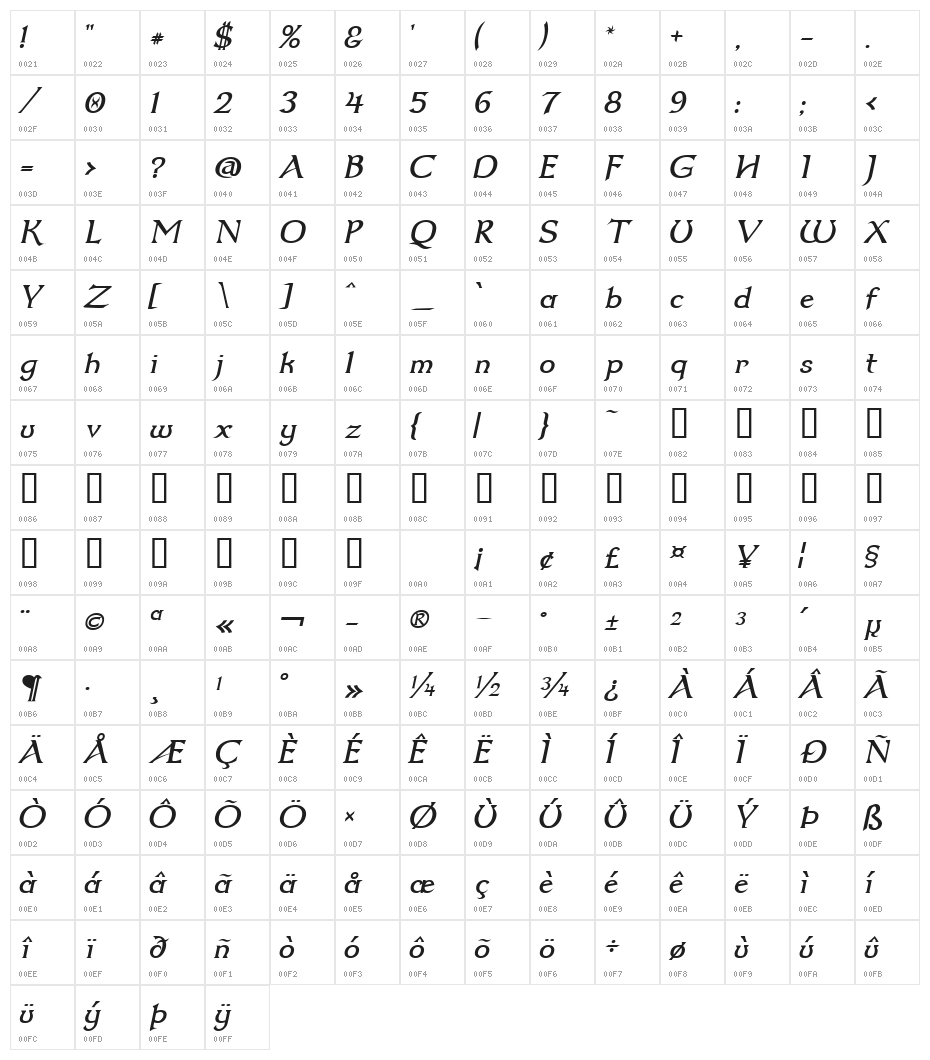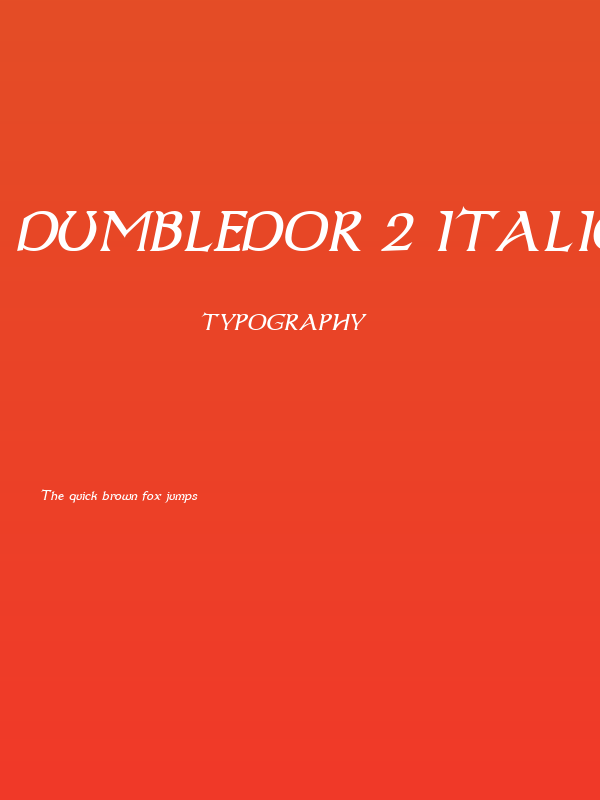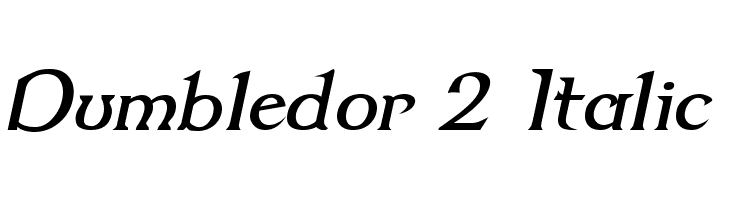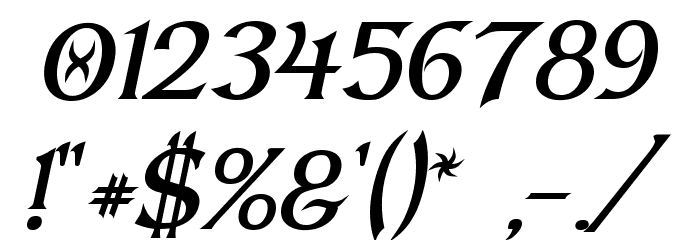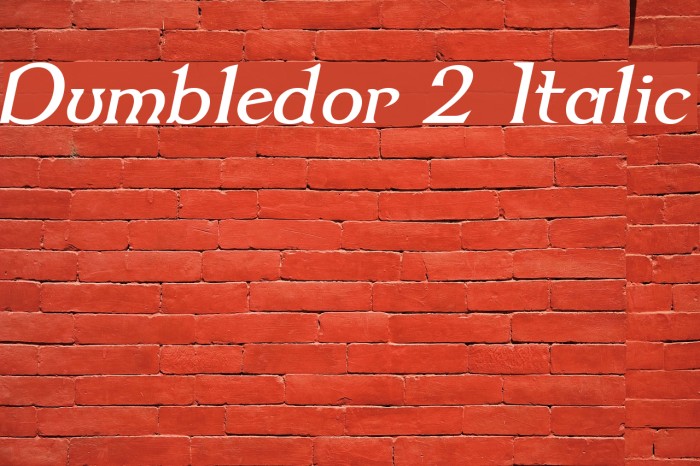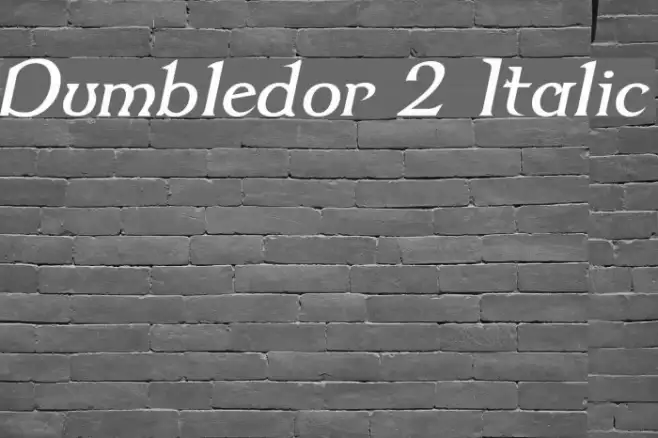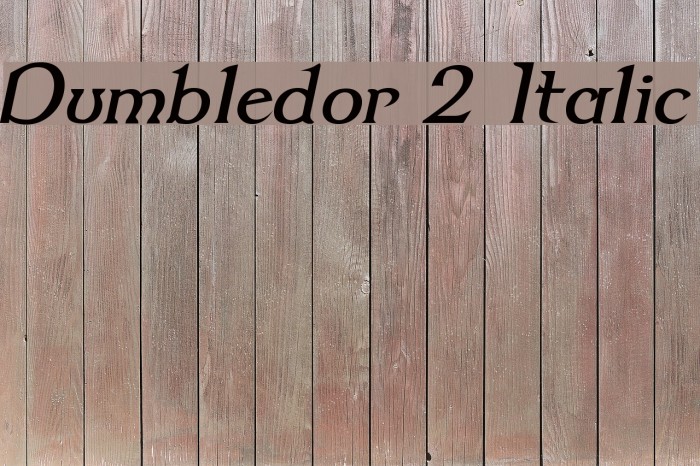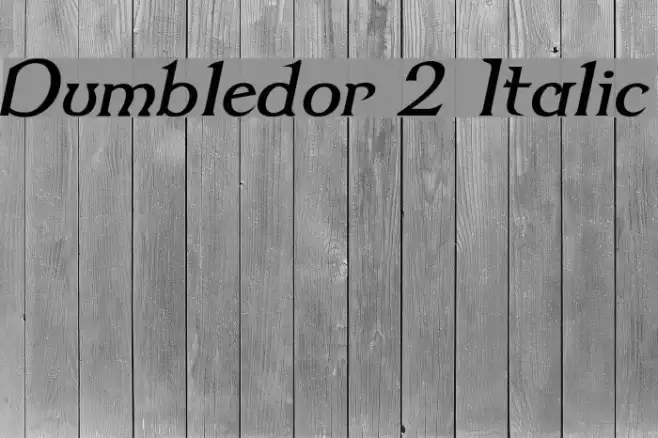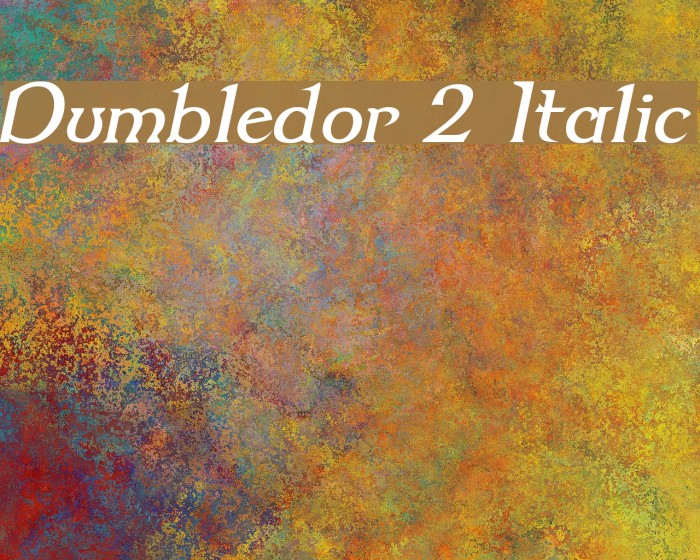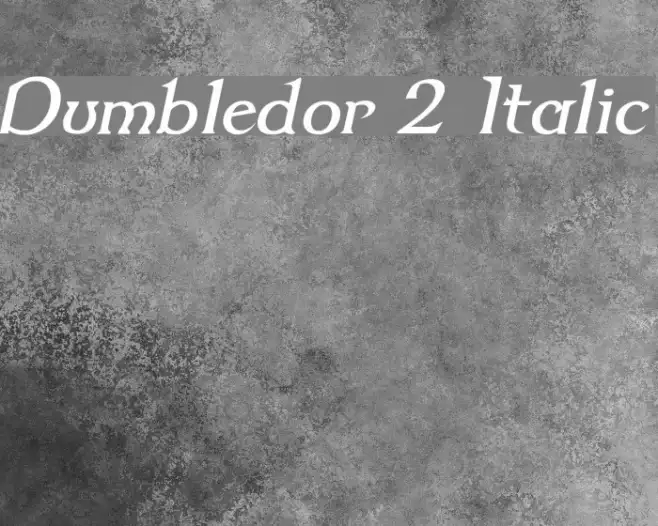
Dumbledor 2 Italic Font
Dumbledor 2 Italic Description
This font features a dynamic and elegant italic style, characterized by its flowing and slightly slanted letterforms. The strokes are smooth and exhibit a moderate contrast, giving the font a refined and sophisticated appearance. The uppercase letters are tall and slightly narrow, while the lowercase letters maintain a consistent rhythm, enhancing readability. The numerals are distinct and align well with the overall style, and the special characters are crafted with attention to detail, adding to the font's versatility. This font exudes a sense of movement and grace, making it suitable for a variety of creative applications.
| Overall Style | Elegant |
| Use Case | Headlines, Logos, Invitations |
| Proposed Projects | Ideal for branding, invitations, editorial design, and any project requiring a touch of elegance and sophistication. |